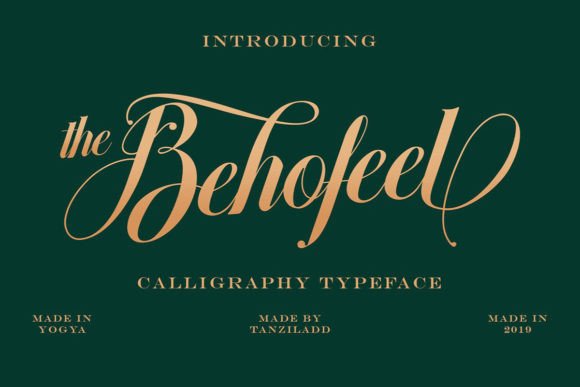
Step into the realm of elegance and grace with Behofeel Font, the epitome of sophistication in the world of script fonts. This exquisite creation by JumboDesign is a masterpiece designed to elevate your designs to new heights of luxury and refinement.
Behofeel Font is not just a collection of letters; it's an artistic expression that captures the essence of timeless beauty. Every stroke, every curve, every detail is meticulously crafted to evoke a sense of grandeur and allure. The result is a font that commands attention, leaving an unforgettable impression on all who behold it.
With Behofeel Font, you have the power to transform ordinary designs into extraordinary works of art. Its flowing lines and delicate flourishes bring a sense of elegance to branding materials, adding a touch of exclusivity to your brand's identity. Invitations crafted with Behofeel Font exude an air of sophistication, ensuring that your special occasions are remembered for years to come.
Whether you're a seasoned designer or just starting your creative journey, Behofeel Font is the perfect companion for your design endeavors. Its versatility knows no bounds, effortlessly adapting to a wide range of projects. From elegant wedding invitations to captivating editorial layouts, Behofeel Font adds a touch of luxury and sophistication that sets your work apart from the ordinary.
But Behofeel Font is more than just a beautiful font; it's an investment in your creative potential. Its timeless design ensures that your designs will remain relevant and captivating for years to come. It's a font that will accompany you on your creative journey, helping you create stunning designs that leave a lasting impression.
Embark on a creative adventure with Behofeel Font and elevate your designs to new heights of elegance and sophistication. Let your imagination soar as you create masterpieces that captivate and inspire. The possibilities are endless with Behofeel Font, the ultimate font for those who seek beauty, luxury, and timeless appeal.